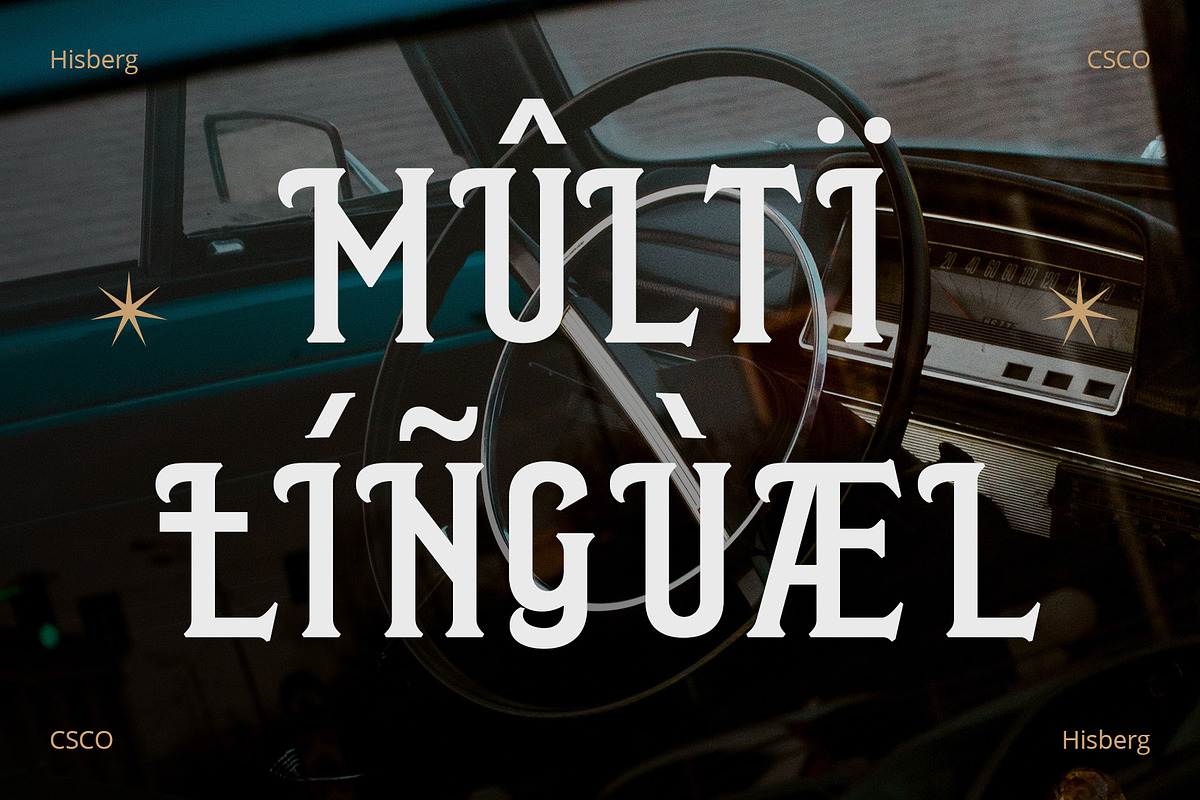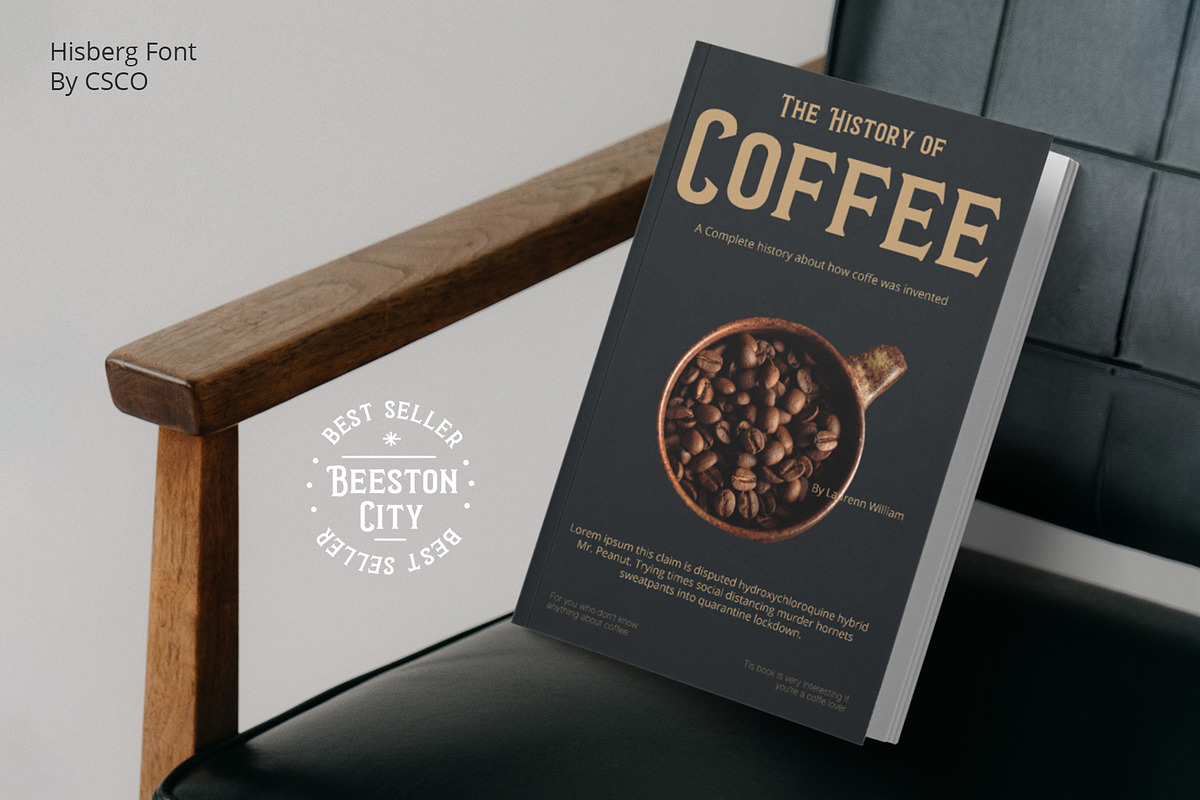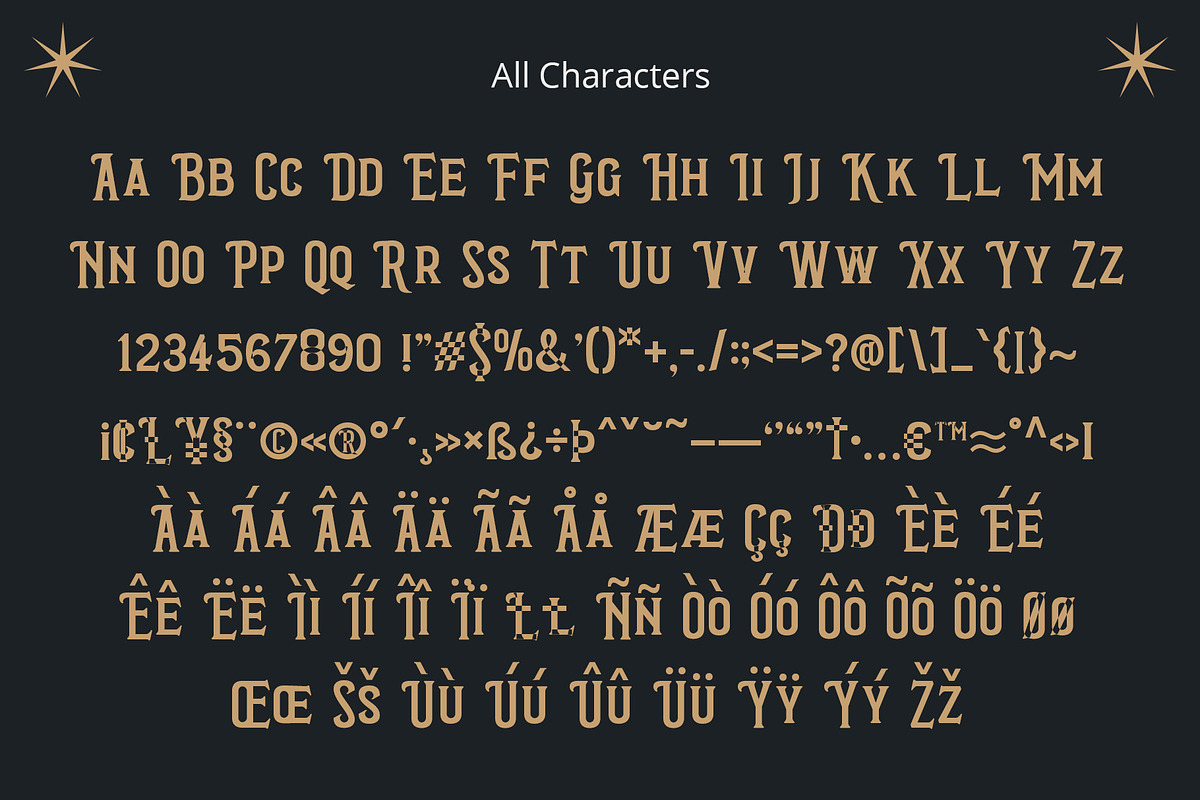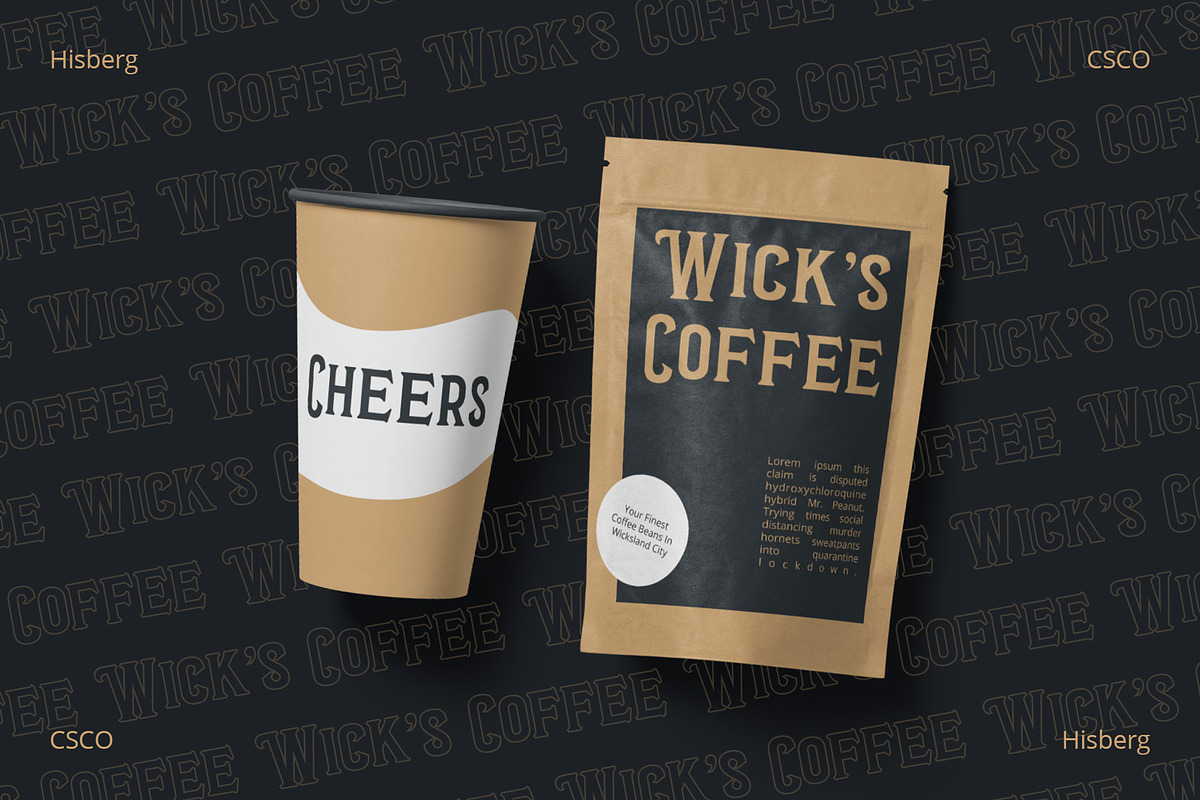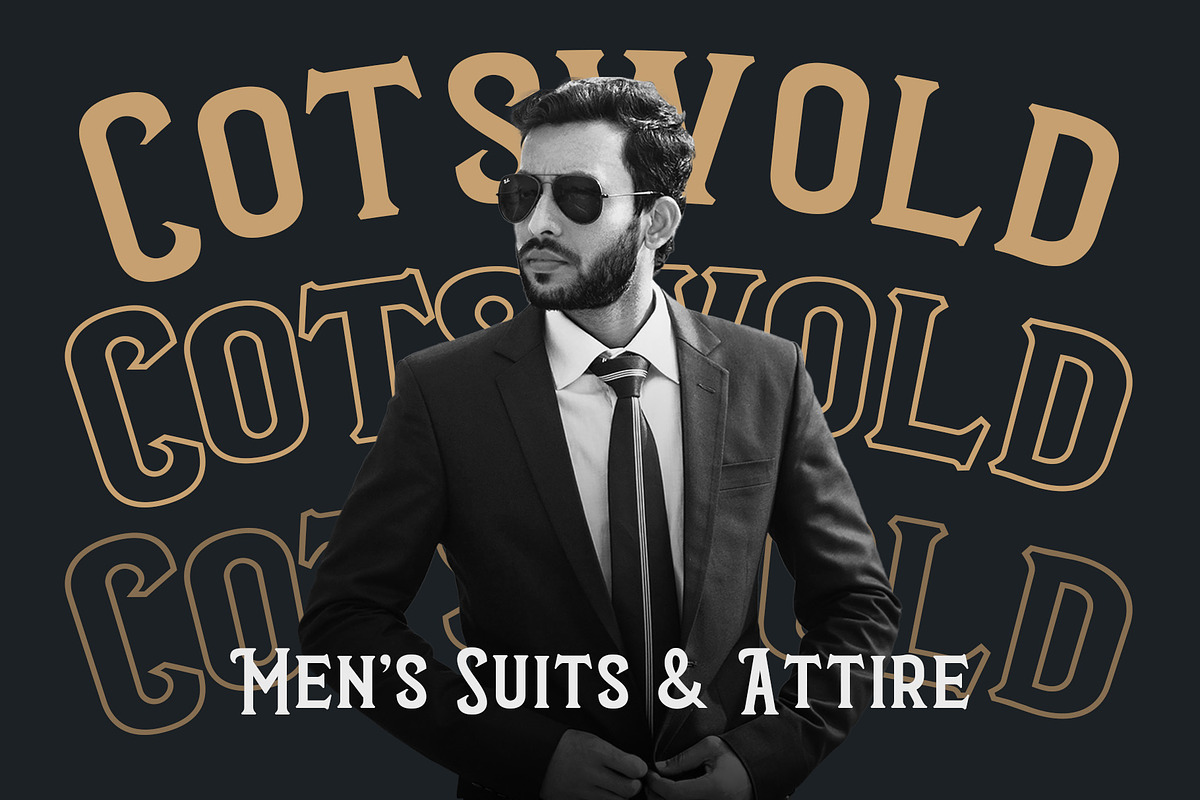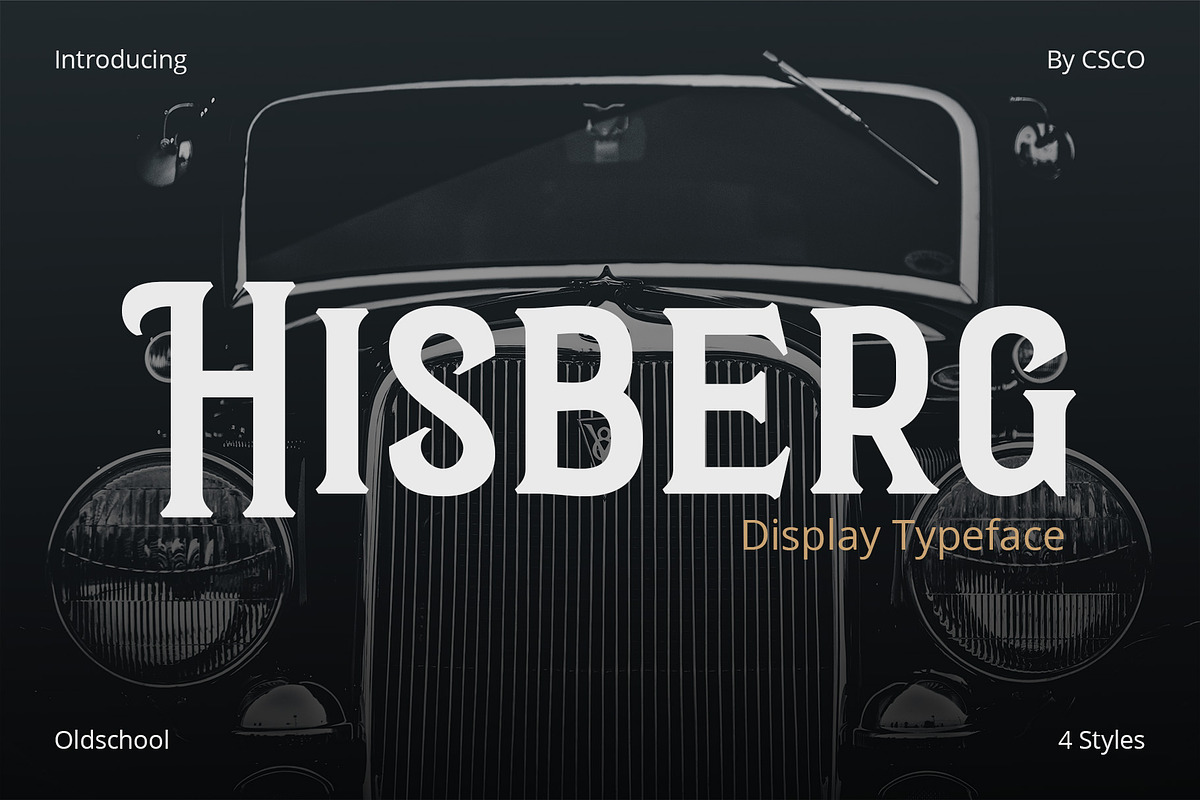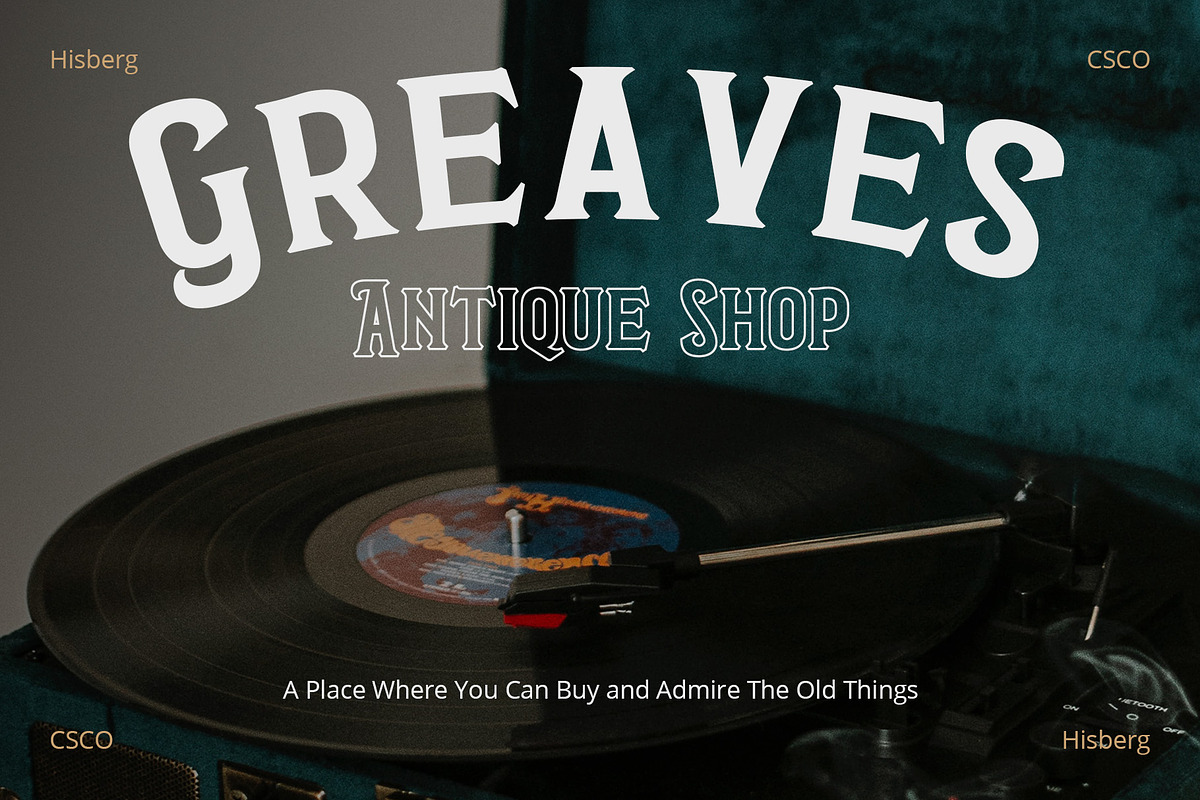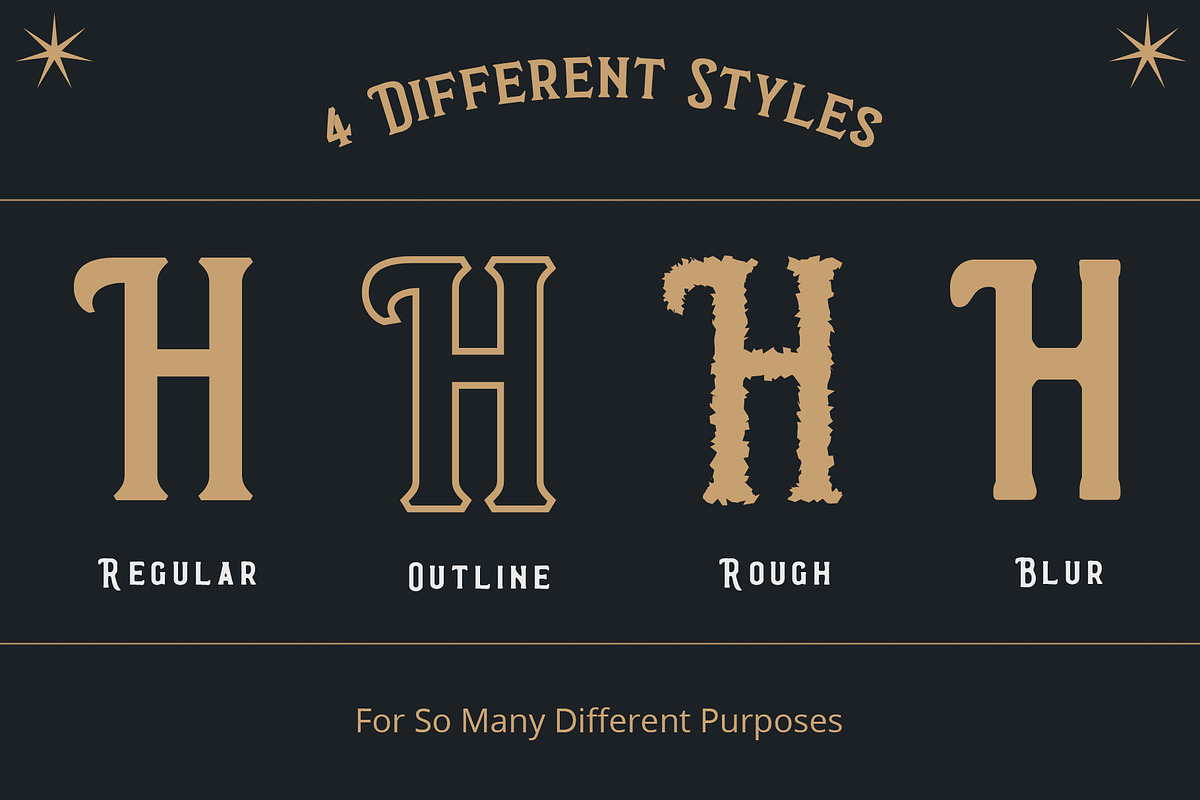
Hisberg – Vintage Serif
Hisberg – Vintage Serif Font
Cultural Richness Hisberg unfolds as a vintage serif font, deeply inspired by the wealth of past cultural richness. Each letter breathes historical elegance, enveloping designs in an aura of the past.
Timeless Appeal Moreover, Hisberg crafts a bridge between eras. It brings the nostalgic charm of yesteryears into modern design, ensuring a timeless aesthetic that captivates and endures.
Artistic Flourishes Additionally, this font features artistic flourishes. The subtle embellishments enhance its appeal, allowing for a presentation that is both sophisticated and compelling.
Versatile Use Beyond aesthetics, Hisberg promotes versatility. Its design complements a diverse array of contexts, from elegant invitations to historical narratives, thereby broadening its applicability.
Easy Integration Furthermore, Hisberg integrates seamlessly into design projects. Its presence enhances, rather than overwhelms, allowing for a harmonious blend with various design elements.
In Closing In conclusion, Hisberg is not just a font; it is a homage to historical and cultural richness, woven into the fabric of each letter, inviting a journey through time in every design.